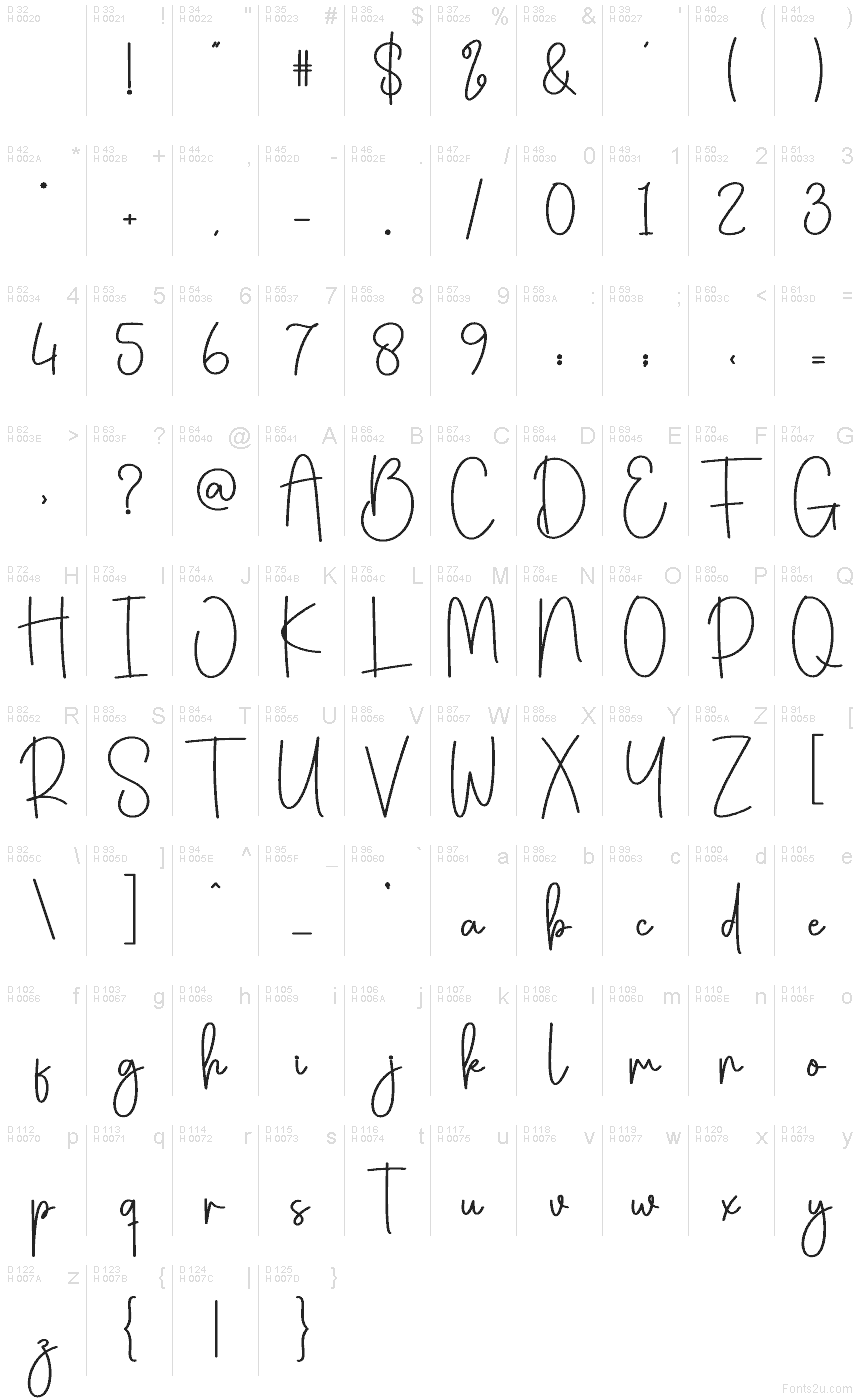
Homebake
Homebake font by Scratchones is a handwritten font that carries a delightful sense of leisure and approachability. Its thin though steady strokes replicate the gentle touch of handwriting and the individual nature it carries. Contemporary, casual, and light in weight, this free handwritten font has that personal edge which works so well when connecting with an audience.